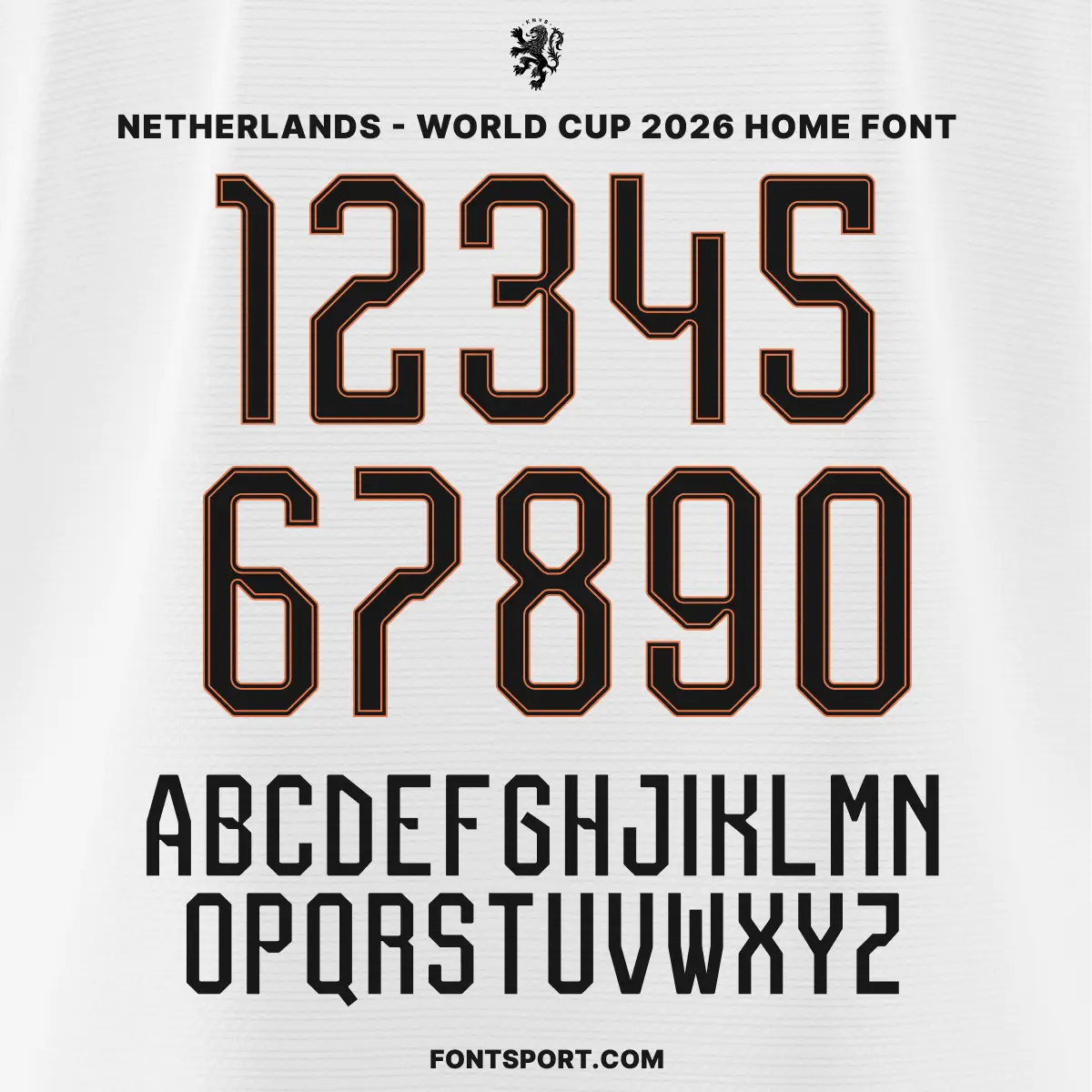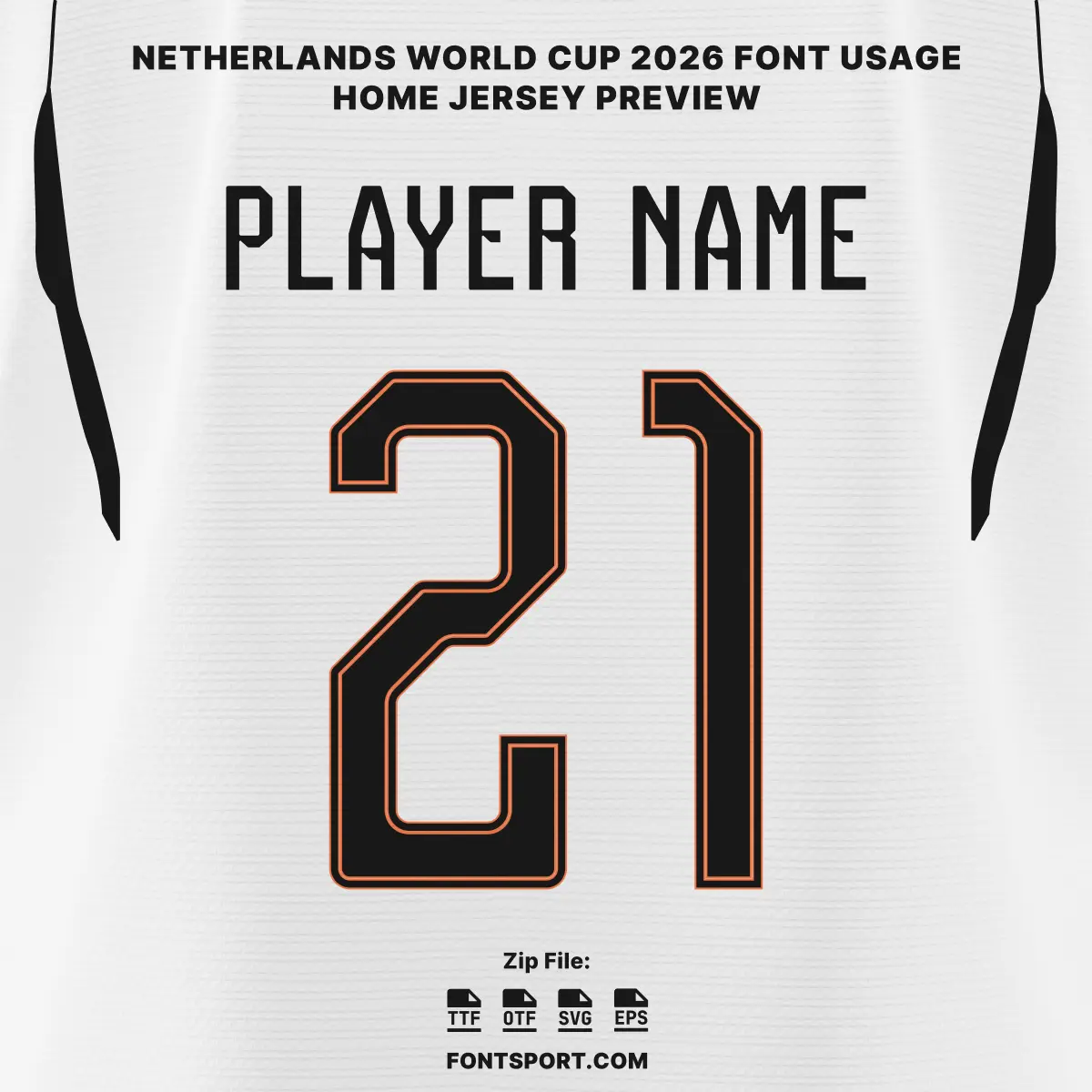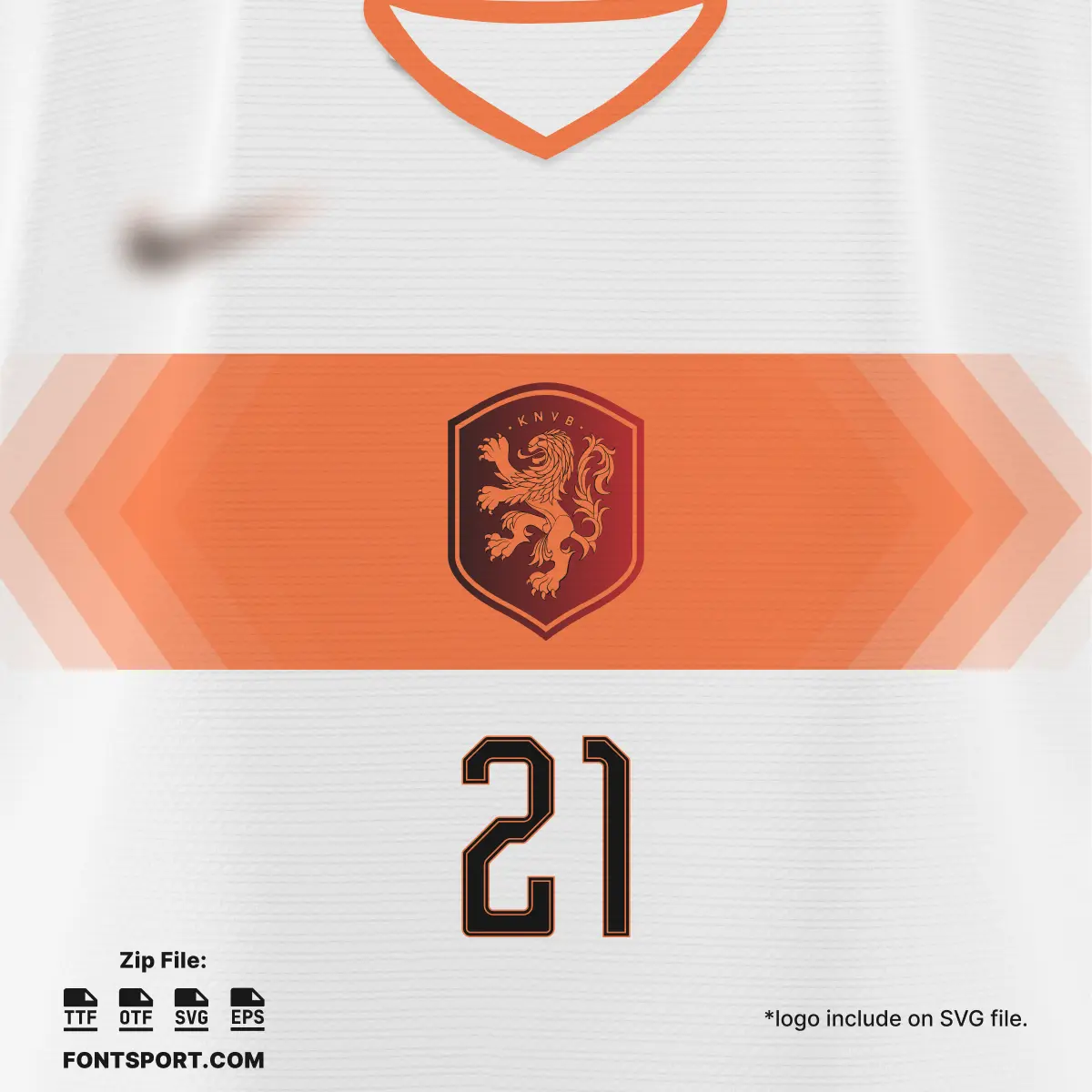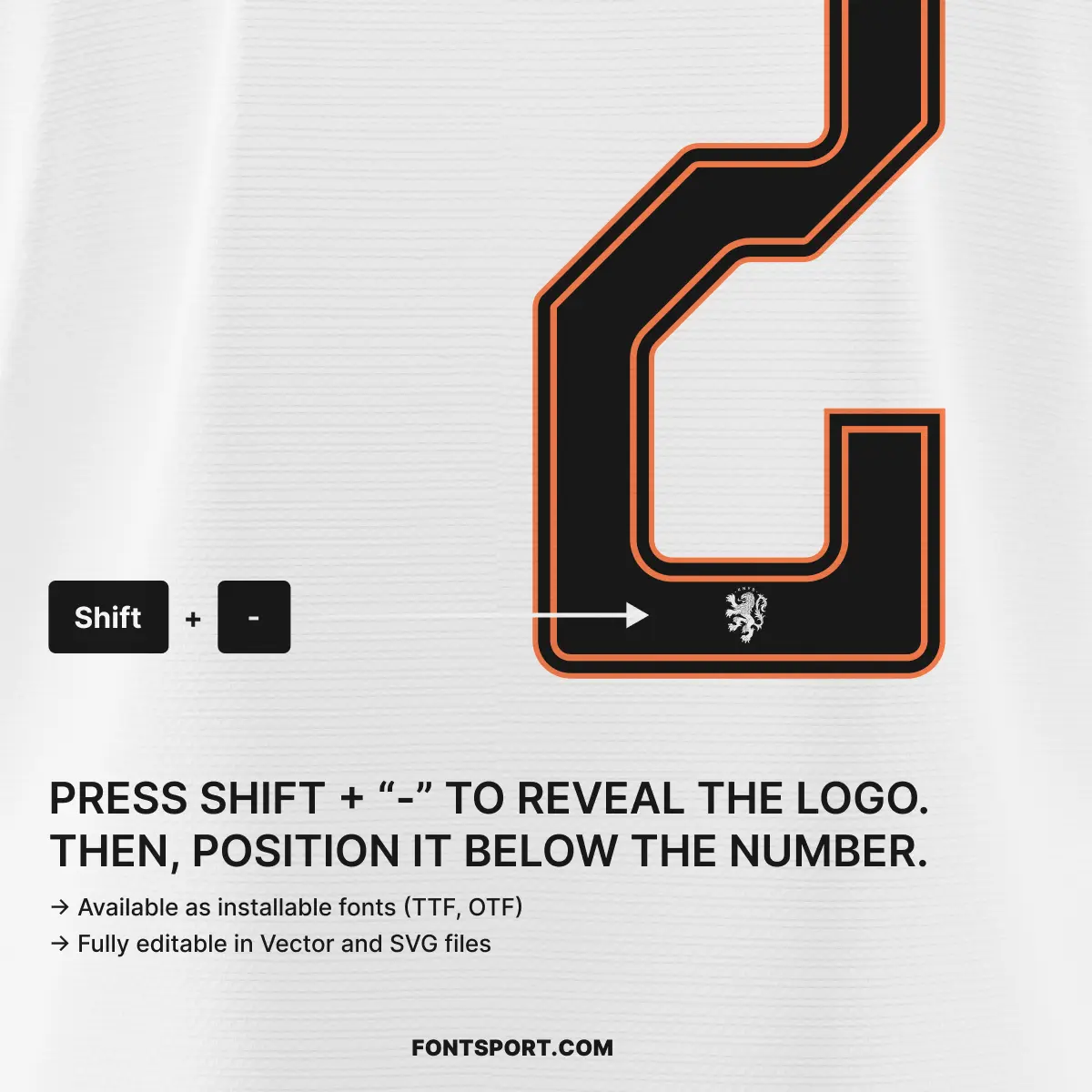
Netherlands World Cup 2026 Away Font Kit – Football Typeface
The Netherlands World Cup 2026 Away Font Kit captures the “Forward Progress” energy of the Dutch national team as they prepare for a historic campaign in North America. This font mirrors the clean, futuristic aesthetic of the 2026 away collection, designed to showcase the nation’s footballing brilliance through minimalist innovation. Featuring sharp, modern geometry and a high-contrast black finish, this typeface is a key element of Nike’s latest athletic identity, reflecting the “Total Football” belief in constant evolution.
• Complete A–Z Character Set: Features the sleek, sharp uppercase letters that will be worn by stars like Virgil van Dijk and Frenkie de Jong on the world stage.
• Full 0–9 Number Set: Optimized for maximum visibility, mirroring the centralized numbers seen in recent tournament-ready fixtures.
• Extra Multilingual Alphabet: Full support for accented characters (Ä, Á, È, Î, Ë, etc.), perfect for accurately rendering an international roster.
• Integrated Team Identity: Add an authentic finish to your designs by revealing the official-style KNVB lion crest within the typography through a simple keyboard shortcut.
This font kit is built for designers who want to bridge the gap between minimalist elegance and high-performance sport:
• Vivid Gradient Inspiration: Specifically designed to complement the away jersey’s striking horizontal chest band, rendered in a vivid gradient of orange tones.
• Aero-FIT Era Design: Part of a campaign that redefines Dutch visual identity for a new generation, focusing on a minimalist yet fierce contemporary look.
• Optimized for Apparel: An ideal font for jersey printing, sports branding, and team uniforms that require a “sleek and athletic” appearance.